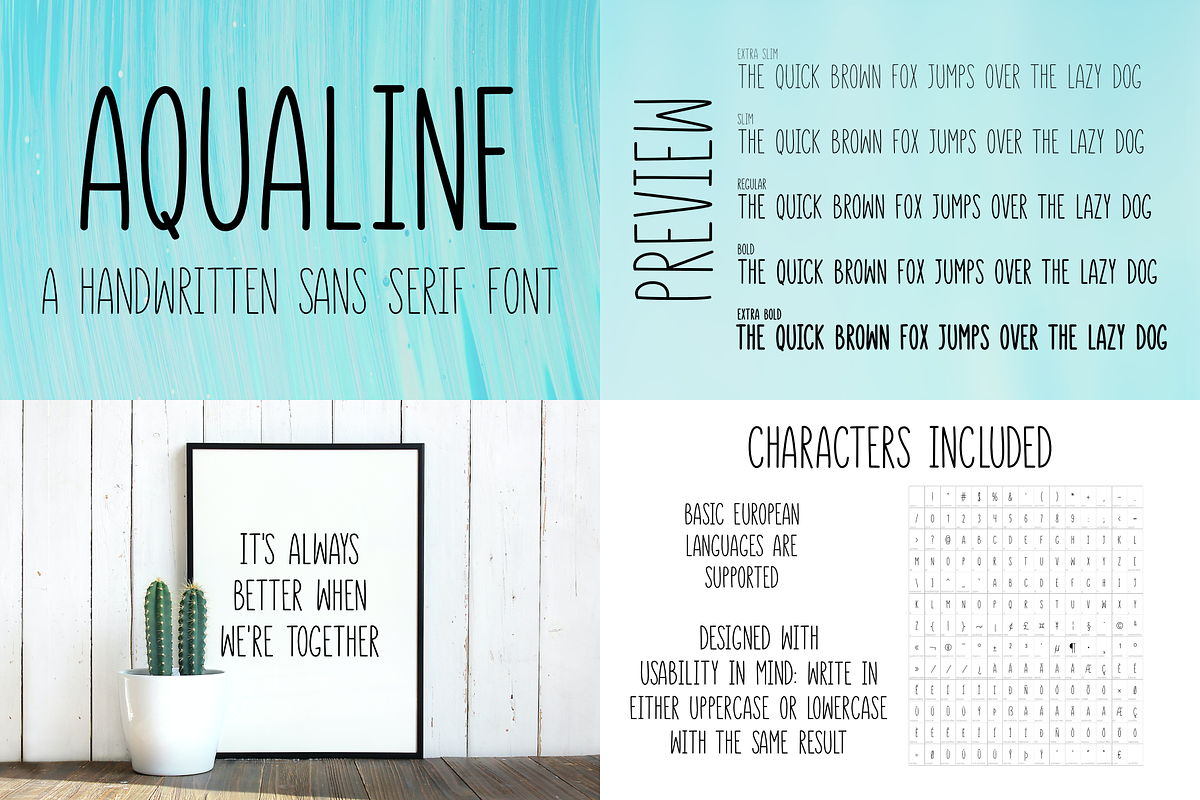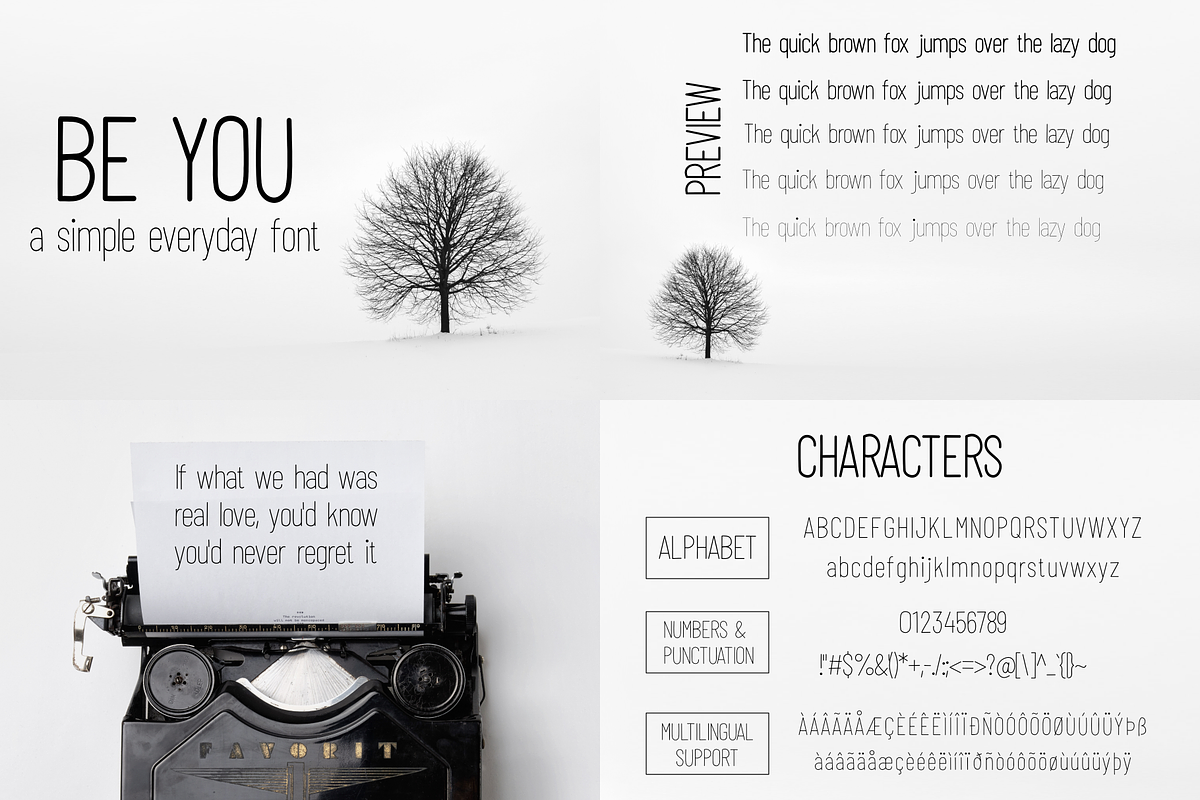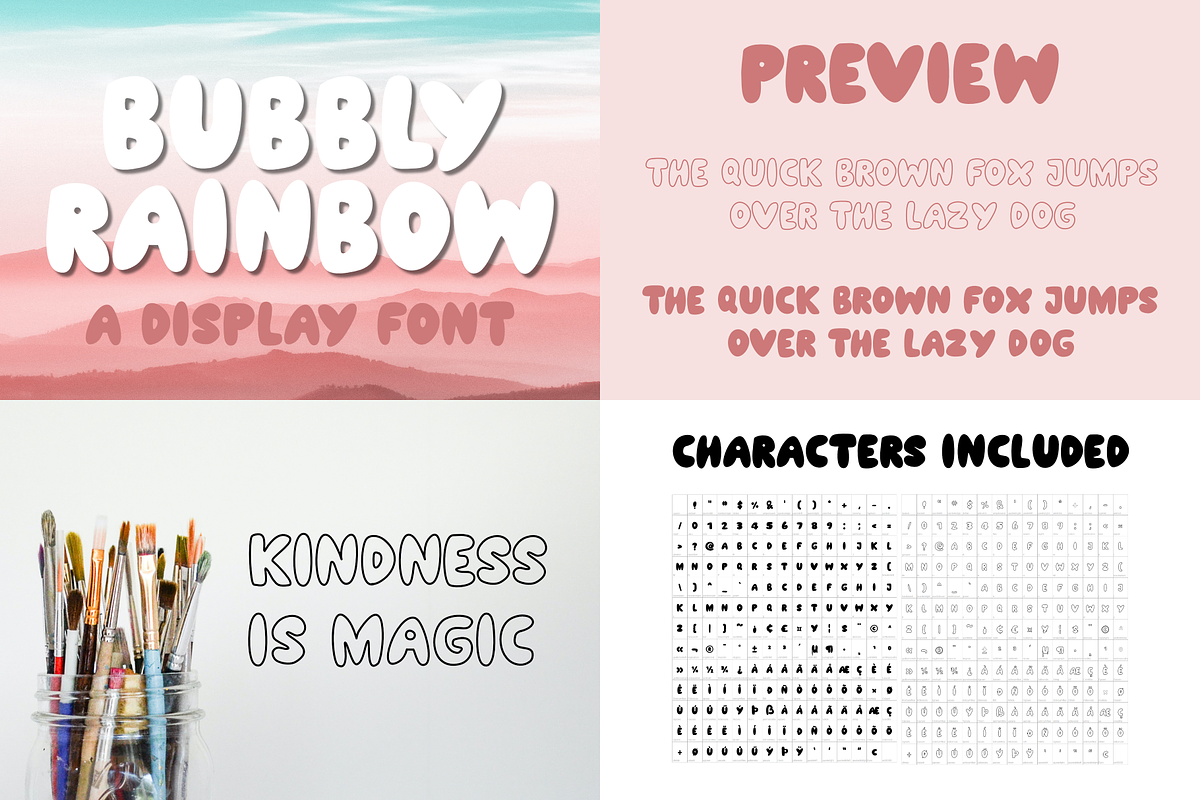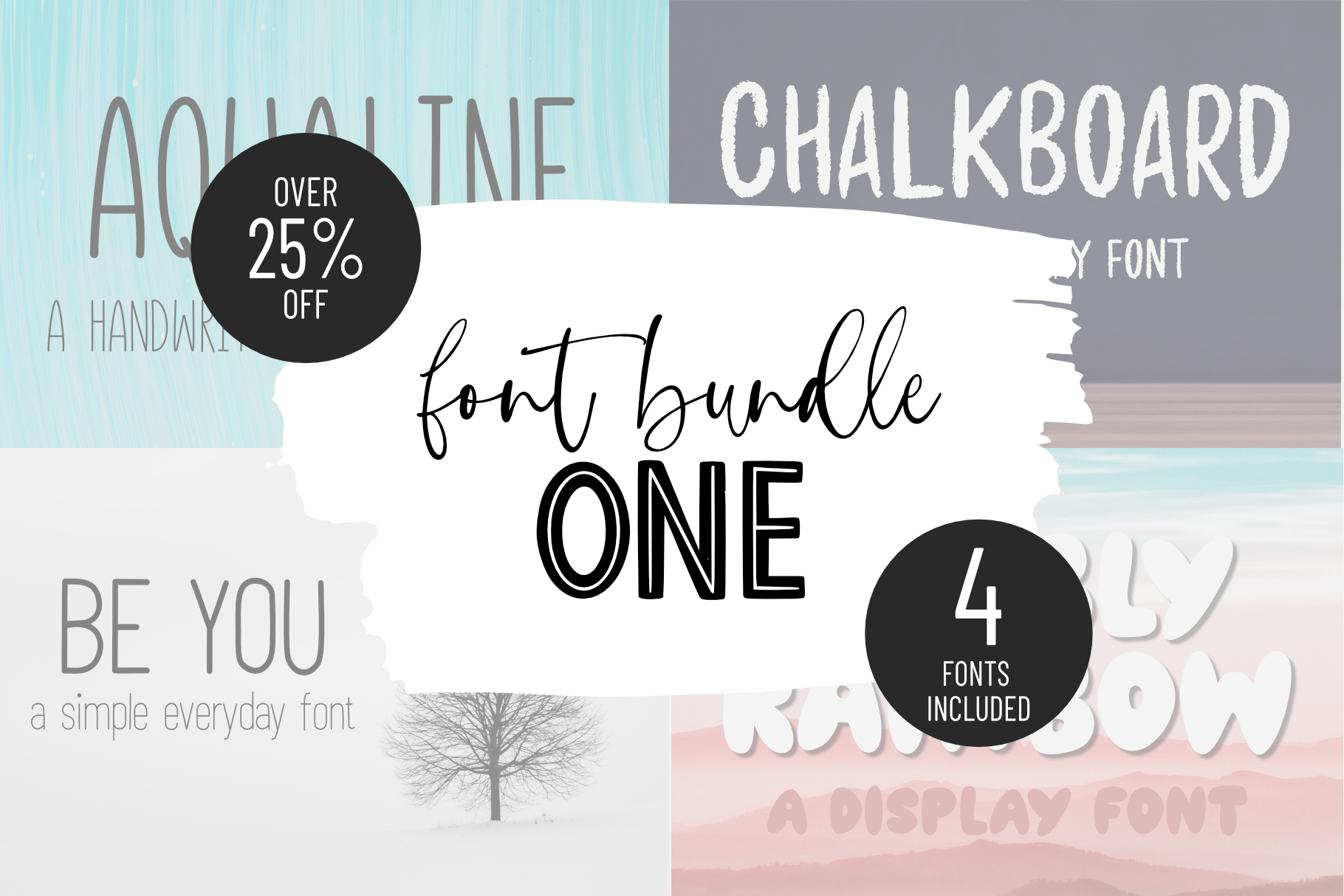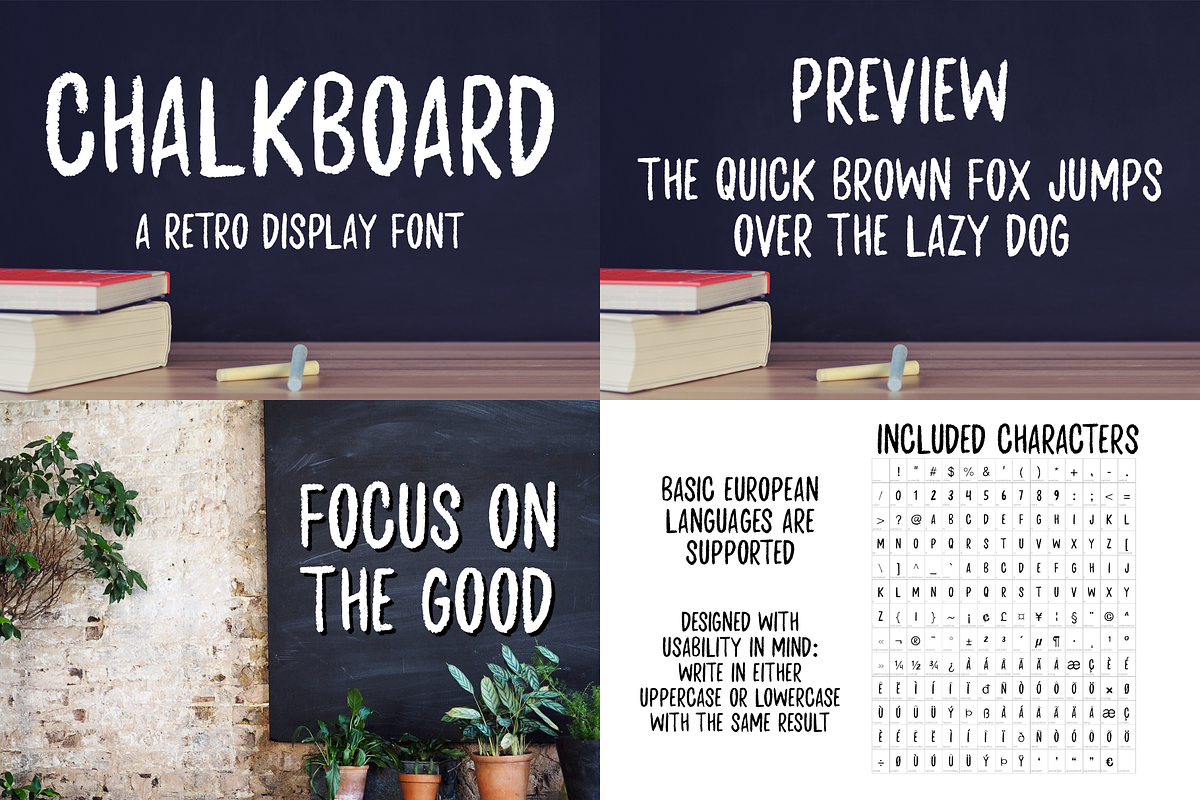
FONT BUNDLE ONE | 4 handmade fonts
Included in bundle:
- Aqualine
- Chalkboard
- Be You
- Bubbly Rainbow
AQUALINE:
Aqualine is a beautiful handwritten sans serif font. It comes in five different weights;
- Extra bold
- Bold
- Slim
- Extra Slim
CHALKBOARD
Chalkboard is a fun retro display font.
Perfect for a retro feel, anywhere you'd like a handwritten feel of chalkboard lettering.
BE YOU
Be you is a simple everyday sans serif font.
Be You comes in five different widhts; extra bold, bold, regular, thin & extra thin
BUBBLY RAINBOW
Bubbly Rainbow is a fun handmade font with a popular bubble style of lettering. It comes in two styles: regular and outline